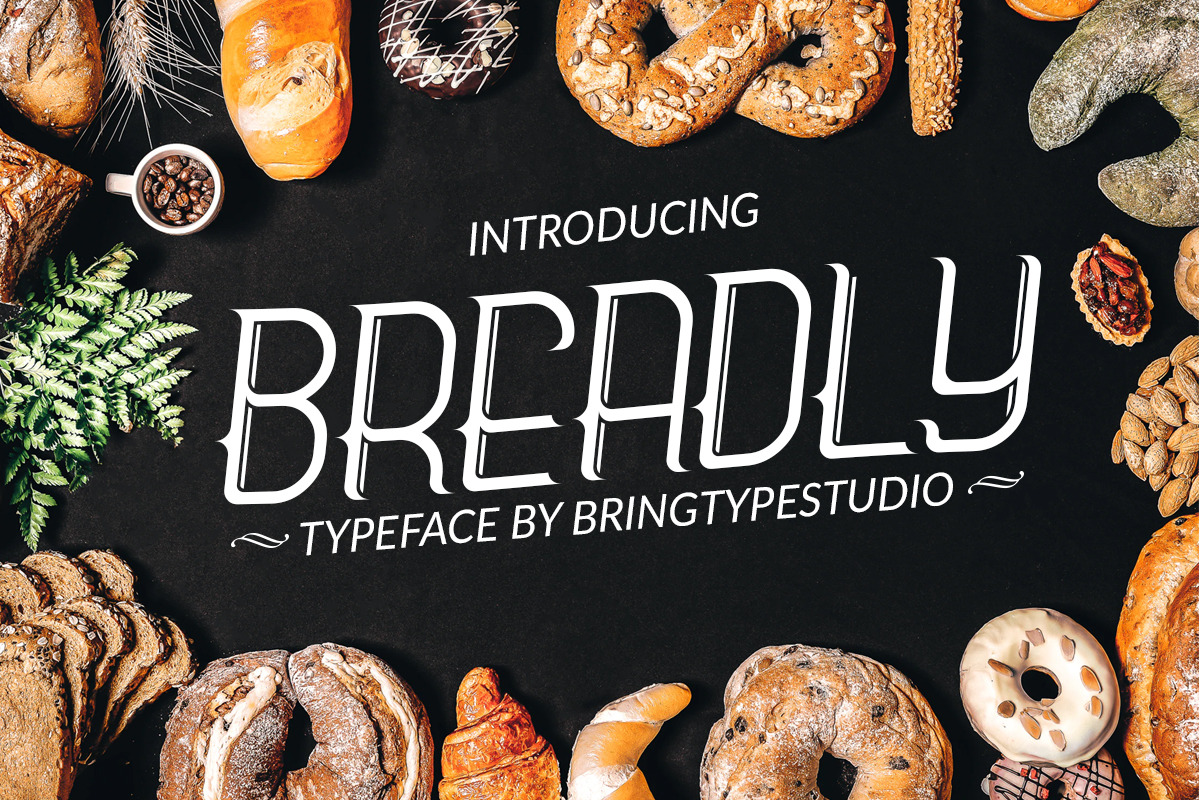
BREADLY | TYPEFACE
bREADLY is a font that is suitable for all kinds of things such as logos, tattoos, clothing, merchandise and so on, BREADLY also includes the type of font that is timeless and fits all the long-term you want. BREADLY also includes multilingual, numbers, punctuation, alternate.